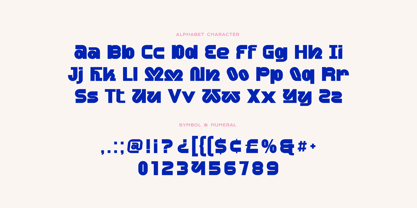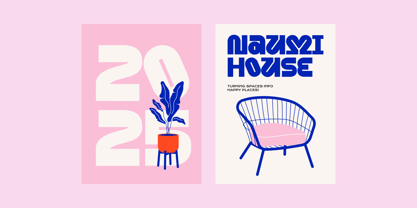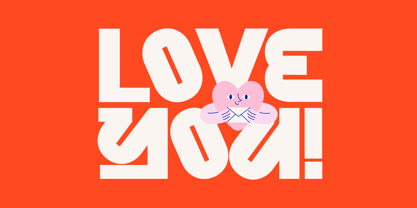
Owins Soul
by Imoodev
The Owins Soul Font Family was designed by Aulia Savira Putri and published by Imoodev. Owins Soul contains 1 styles.
Owins Soul is a bold and modern display typeface with a geometric and slightly retro aesthetic. It is a highly stylized and unique font designed to stand out. With its thick strokes, consistent weights, and modular construction, this typeface boasts a distinctive and visually striking appearance. The font conveys a sense of energy and playfulness, making it ideal for impactful visual applications such as posters, banners, headlines, branding, social media graphics, modern interior designs, logotypes, motion graphics, visual identity design, product mockup, sticker, sweet designs, merchandise, and packaging.